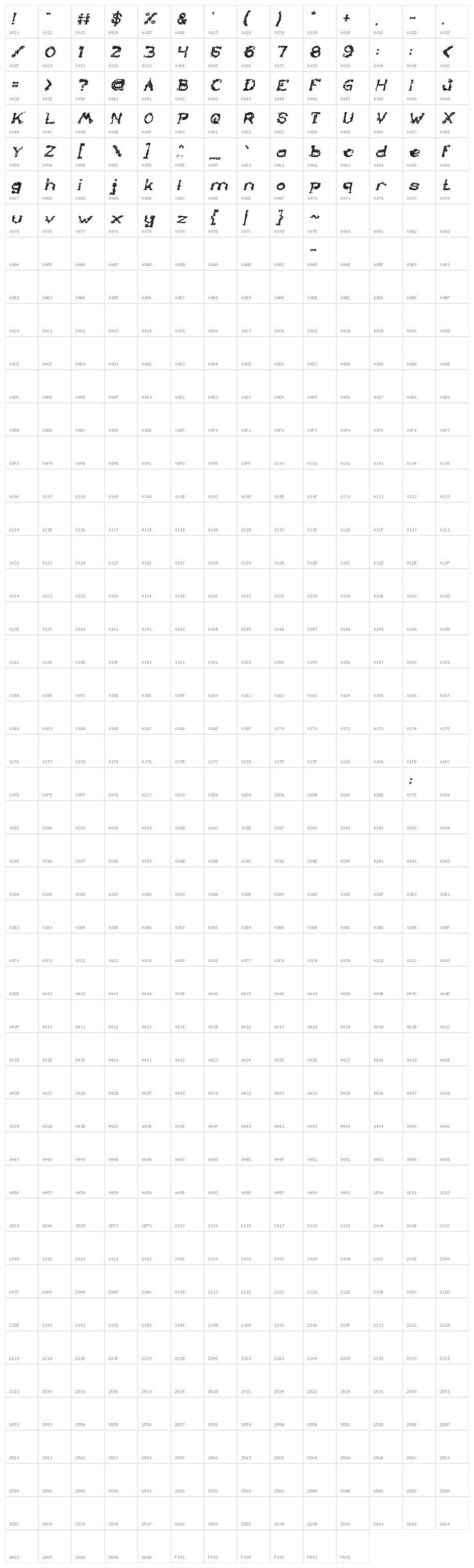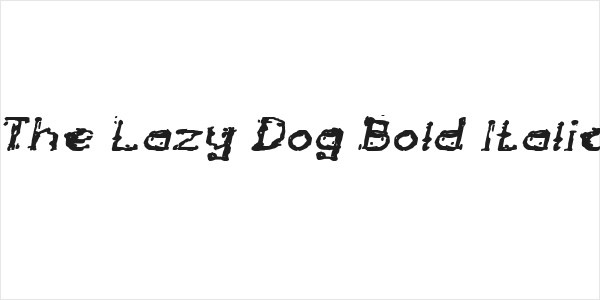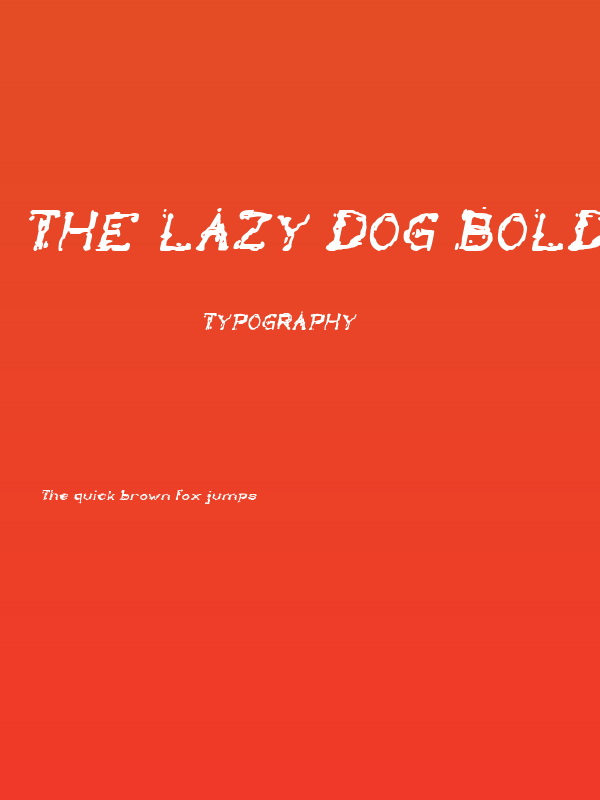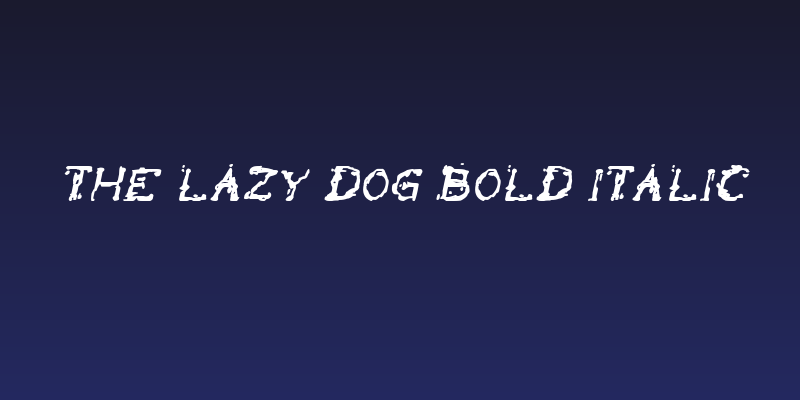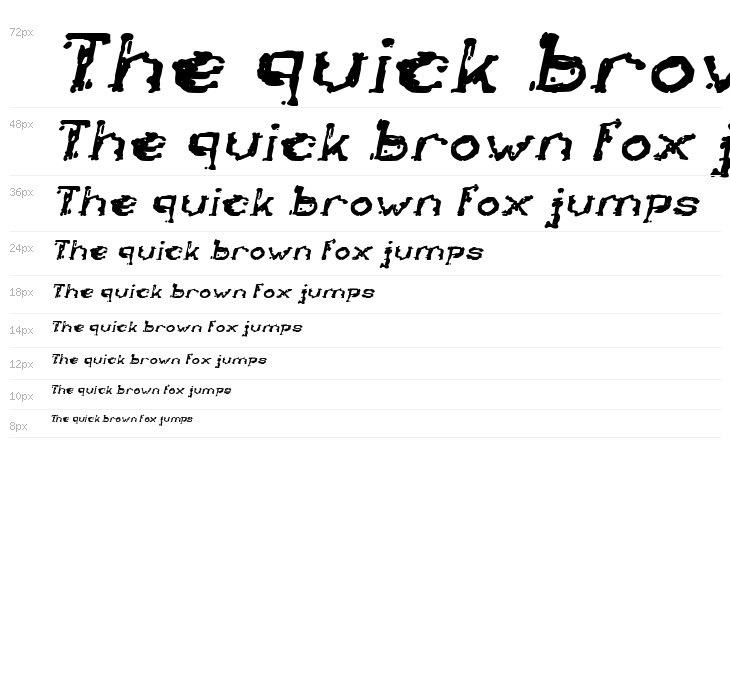
The Lazy Dog Bold Italic Font
The Lazy Dog Bold Italic Description
This font features a bold and italicized style with a distressed, grunge-like appearance. The characters are irregular and textured, giving them a rugged and edgy feel. The uppercase and lowercase letters maintain a consistent style, with jagged edges and varying stroke thicknesses that contribute to its unique aesthetic. Numbers and special characters follow the same design principles, ensuring a cohesive look across all glyphs. This font's distinctive style makes it stand out, ideal for projects that require a bold statement or an artistic touch.
| Proposed Projects | Ideal for album covers, posters, branding for edgy or alternative products, and creative design projects that require a bold, artistic statement. |